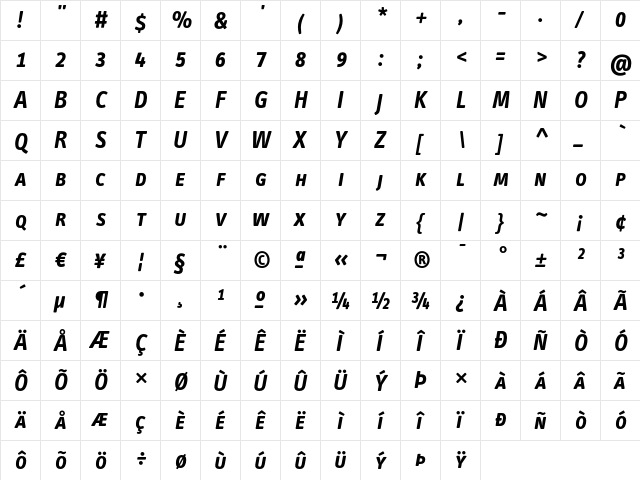
InfoTextBoldTf CapsIta
Design Context for InfoTextBoldTf Typeface
InfoTextBoldTf takes a measured approach to typography — its balanced proportions and neutral character make it a reliable workhorse for both digital and print work. The heavy weight commands attention and anchors typographic hierarchies.